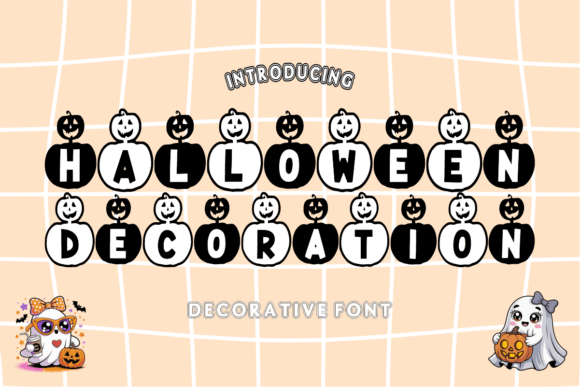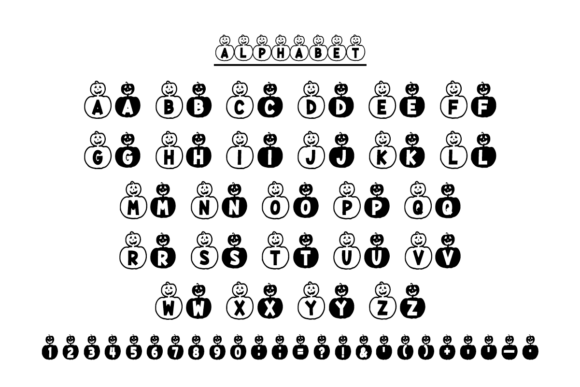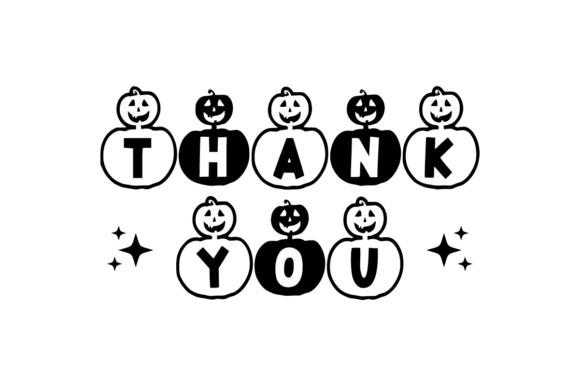
Introduction to Pumpkin Character Font
Unveiling “Pumpkin Character”, an enchanting pumpkin-themed dingbat font.
Every character is imbued with an enchanting pumpkin design, amplifying its individuality and charm It’s an ideal match for TM sublimation patterns on apparel, drinkware, reusable shopping bags, and even in animations or comic headers.
Key Features of Pumpkin Character Font
Why Choose Pumpkin Character Font?